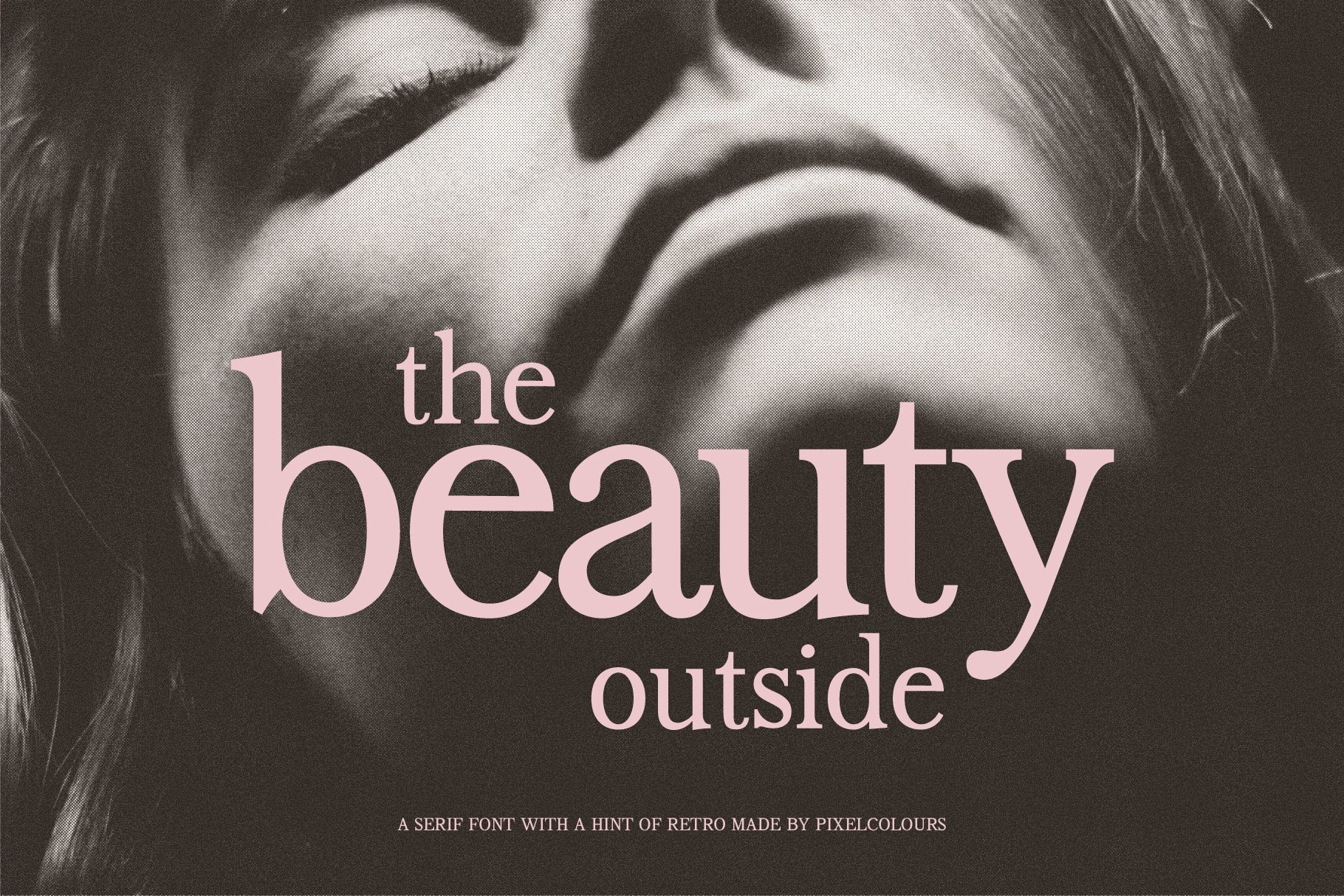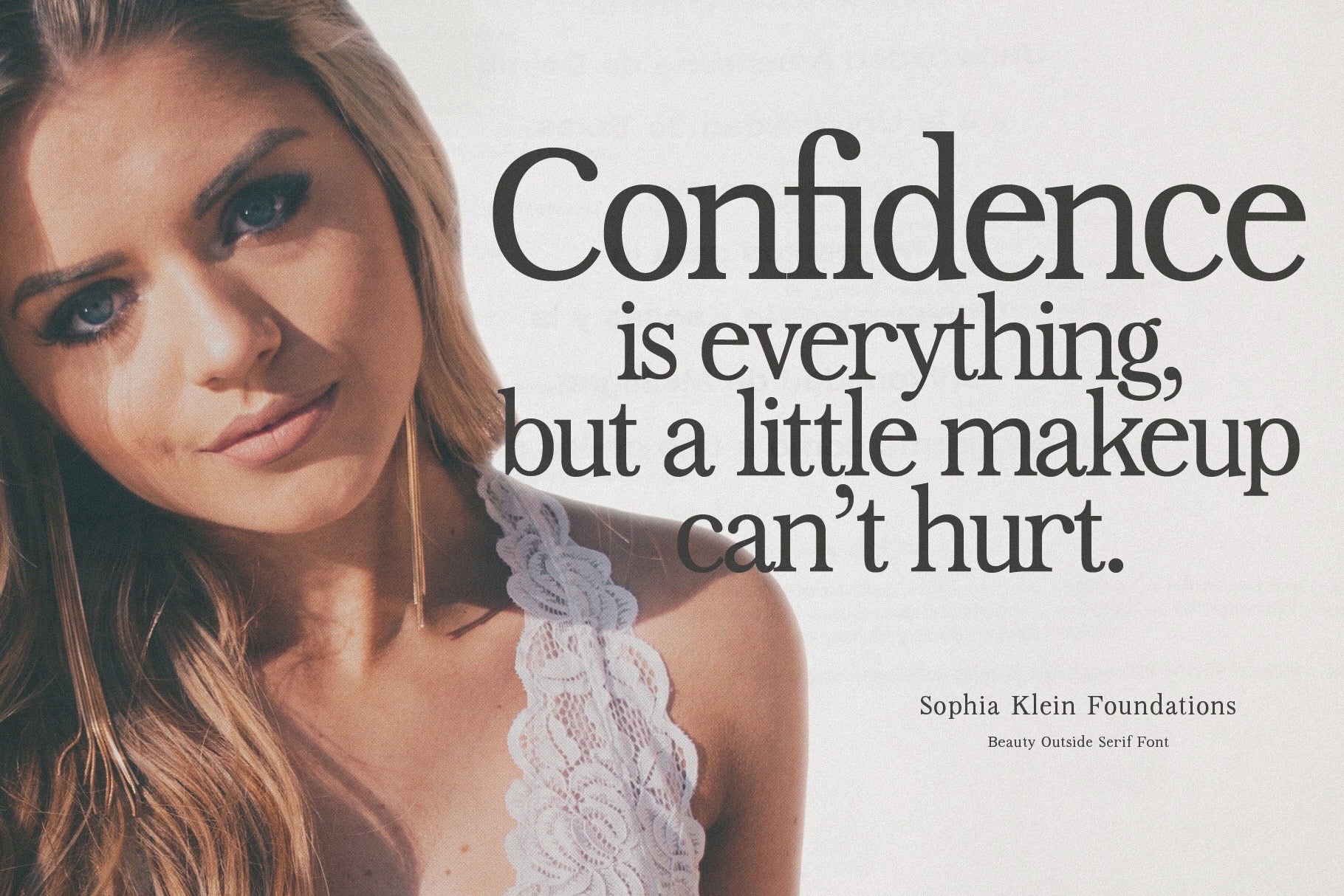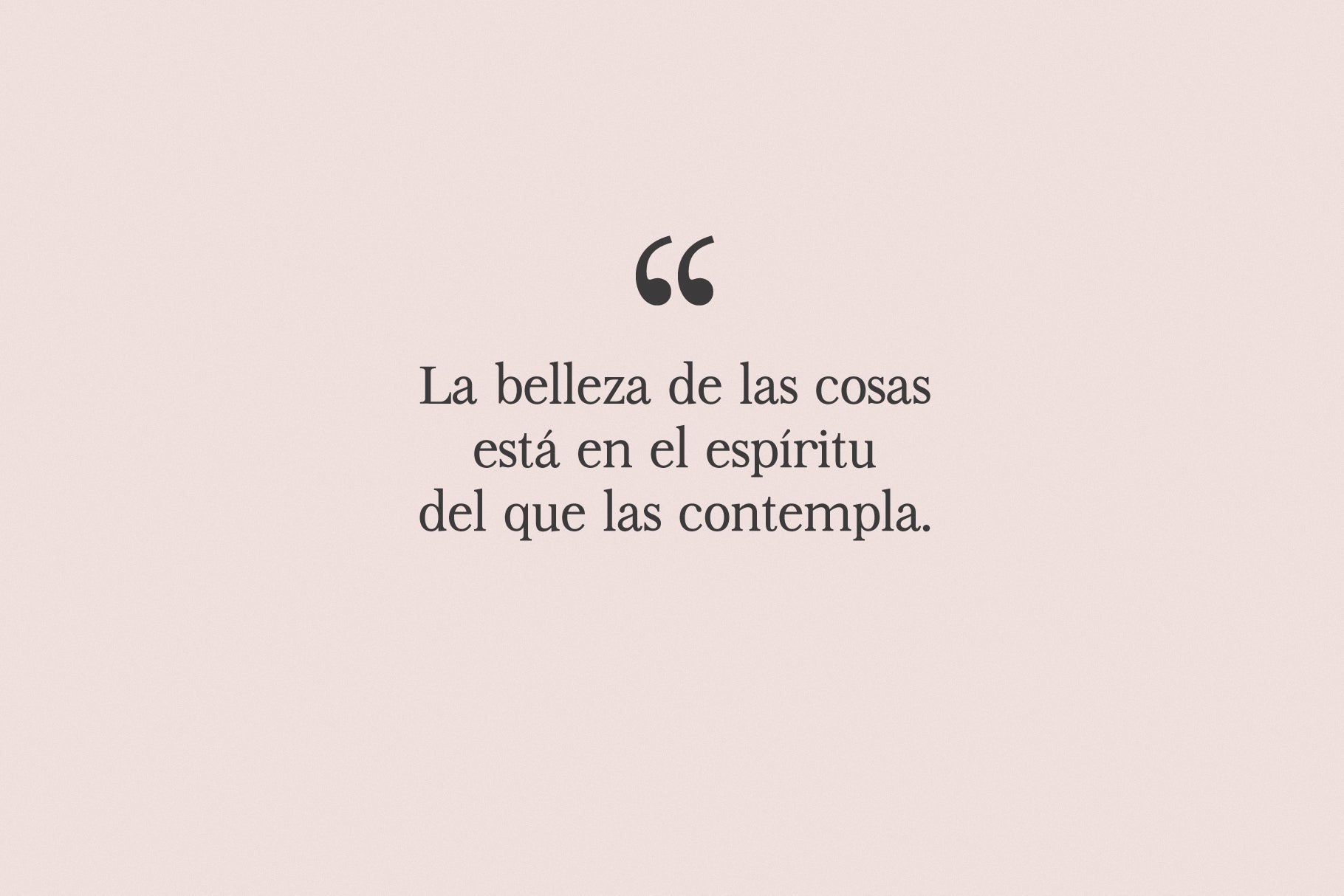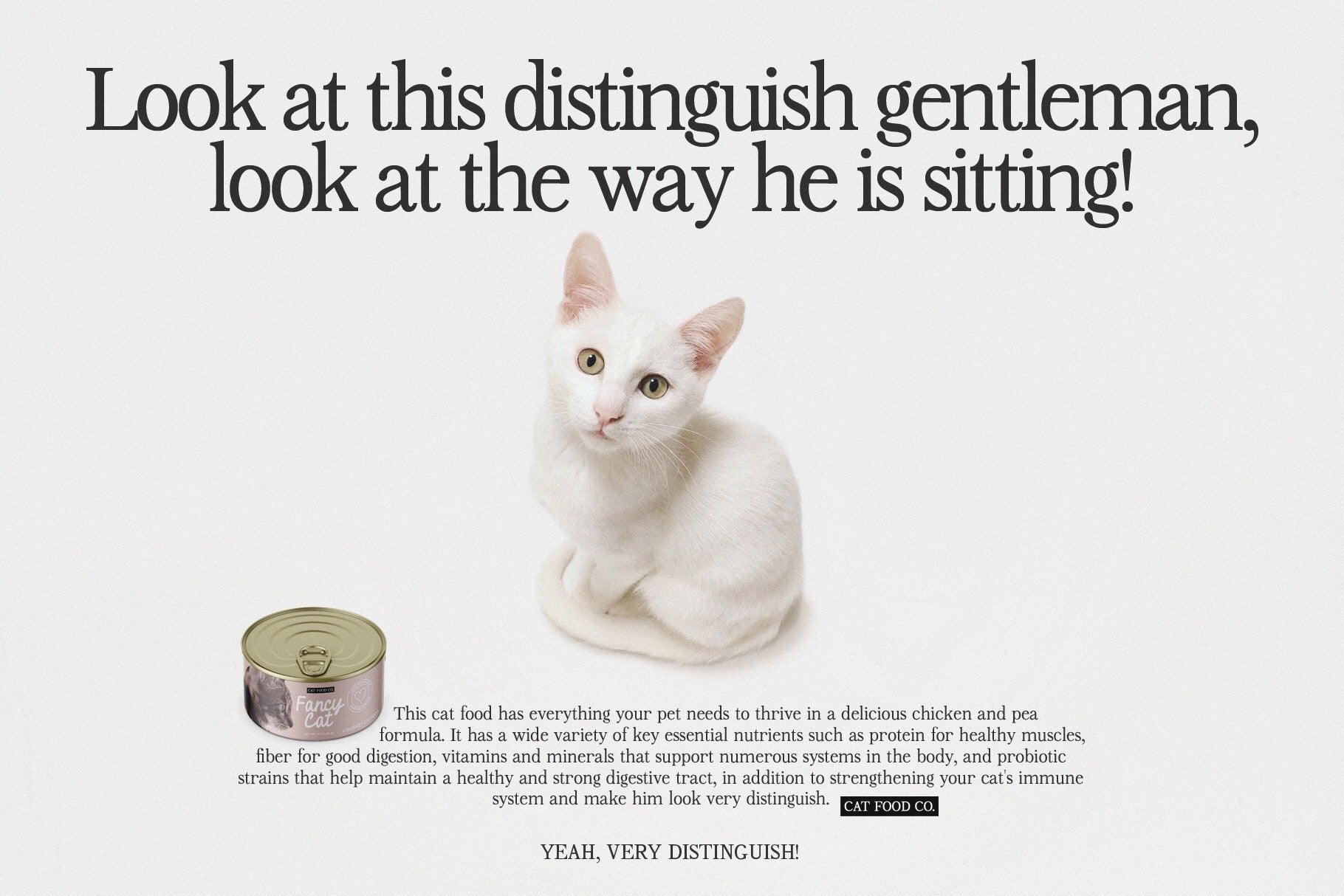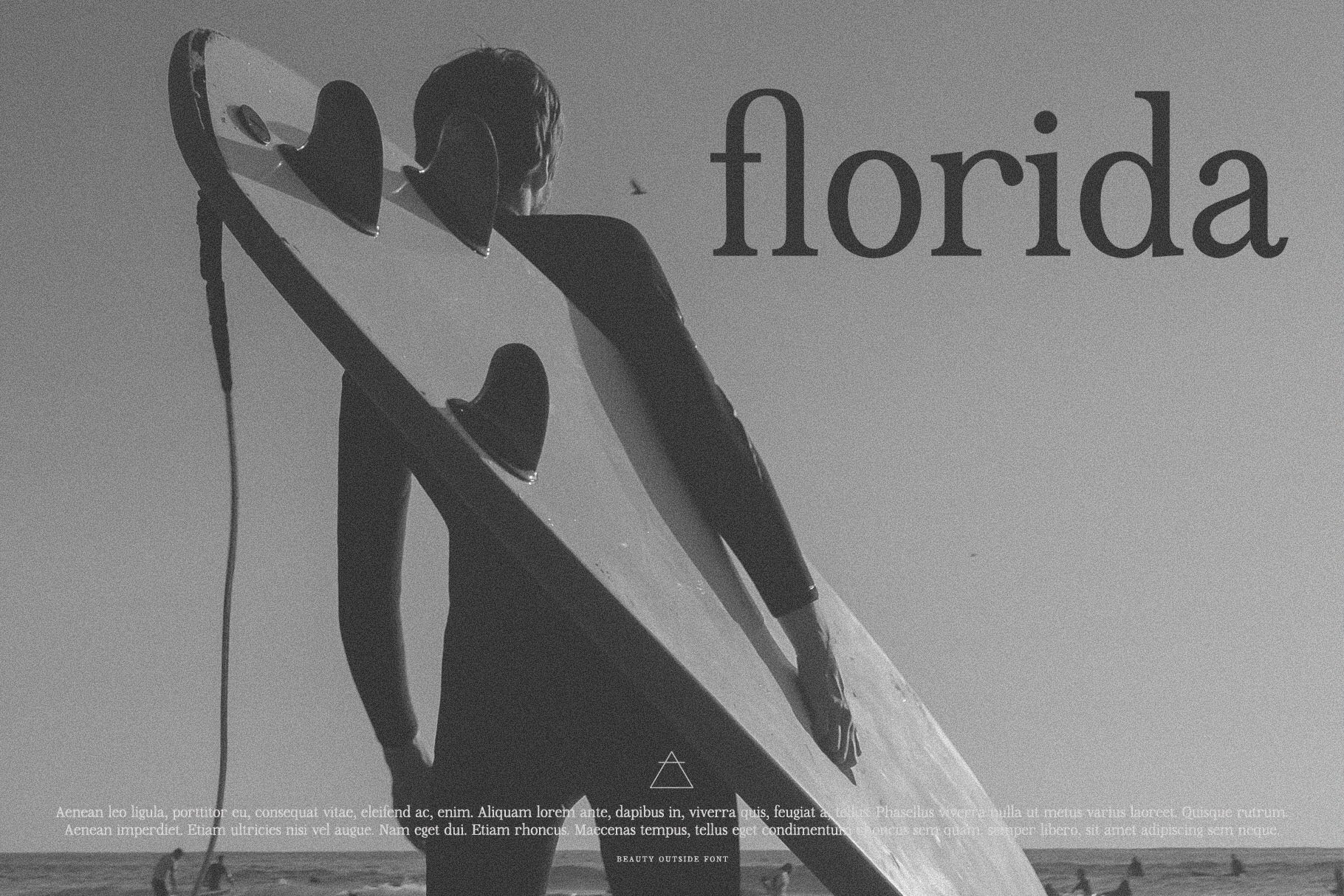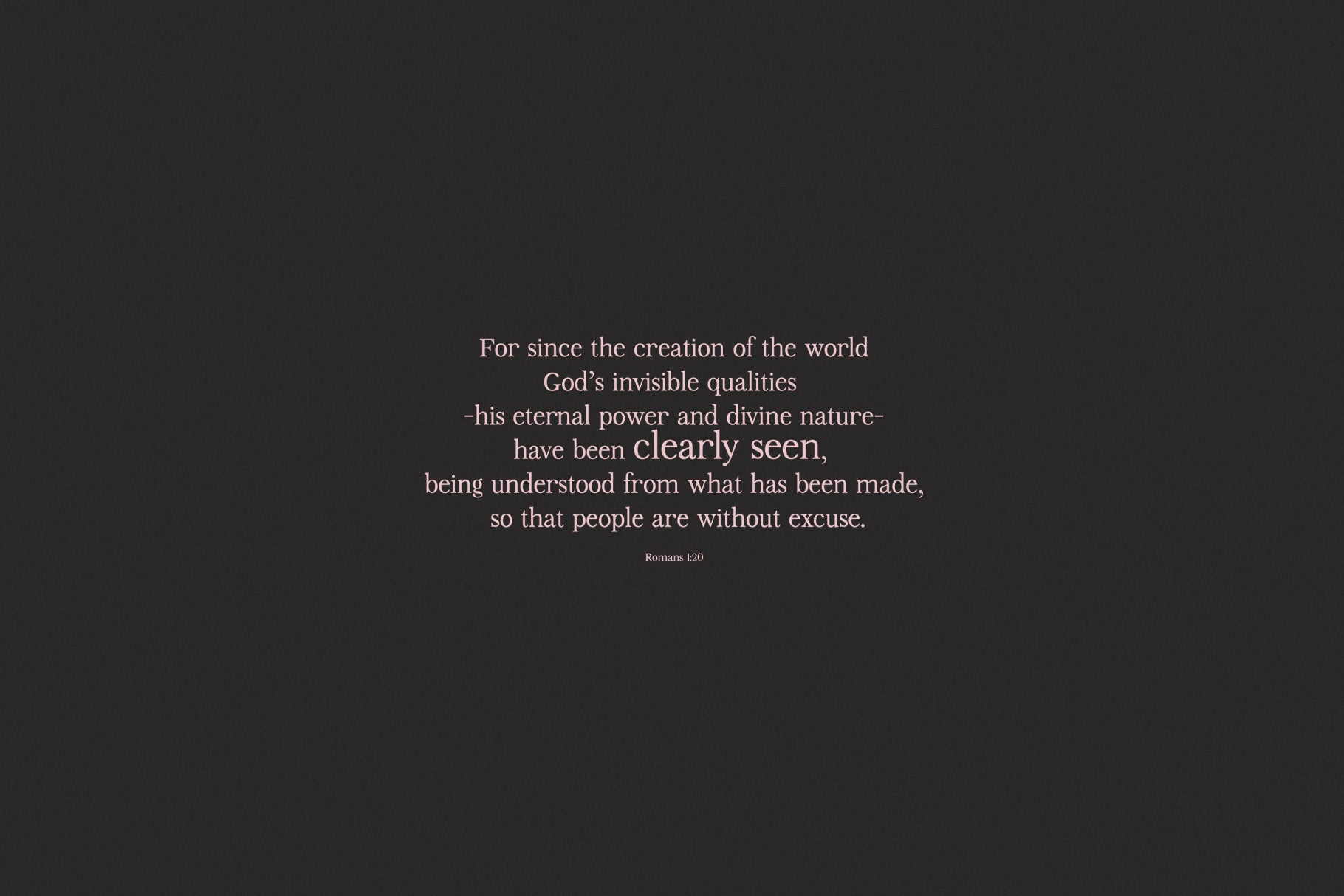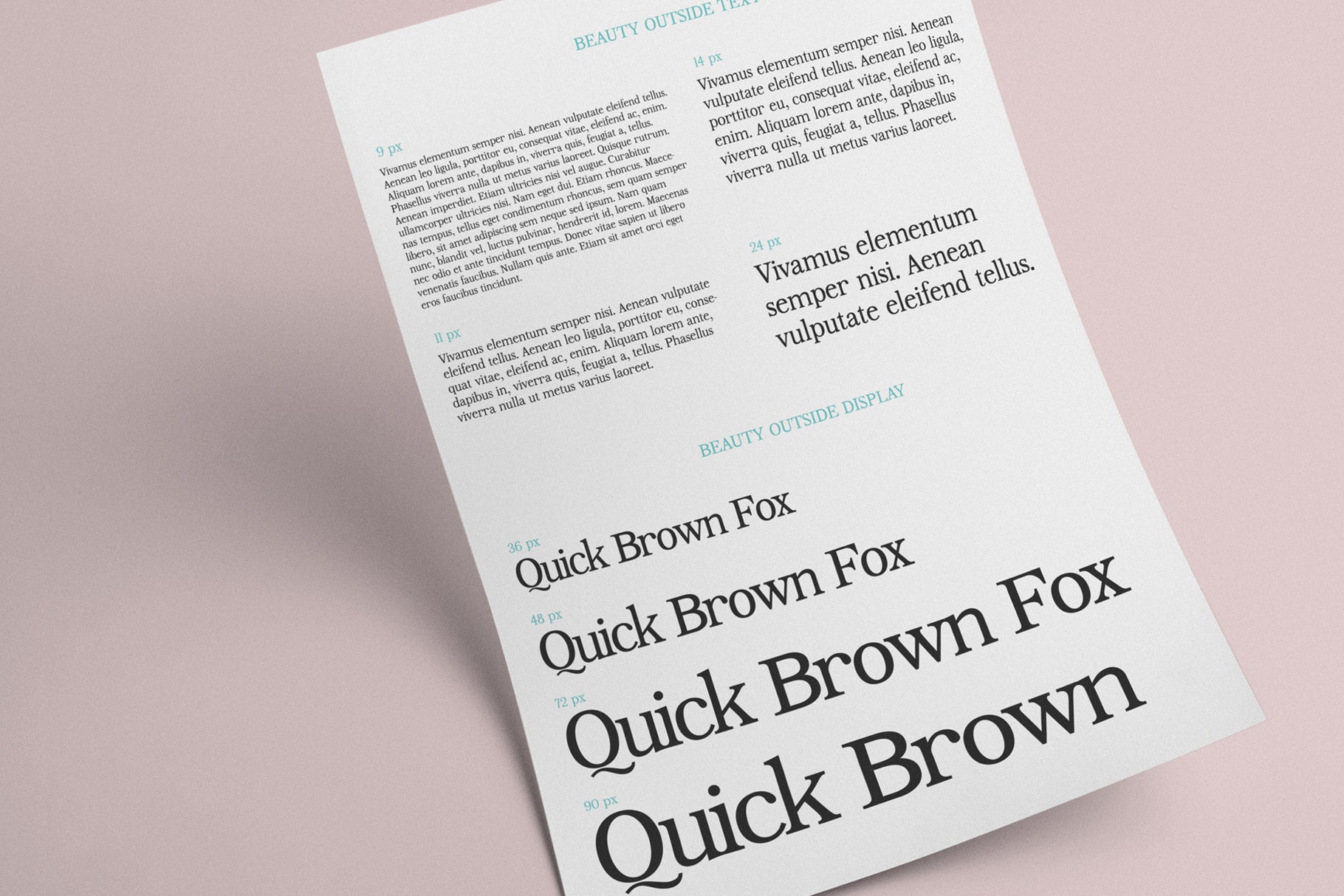
Beauty Outside Retro Serif Font
Beauty Outside is a serif font with a hint of retro. Includes a display font for larger words and a text font optimized for reading. Use them alone or pair them together to create professional compositions and designs.
- Beauty Outside Text: a serif font with loose letter spacing suited for reading great for larger blocks of text.
- Beauty Outside Display: a serif font with with tight letter spacing suited for larger type and headlines.